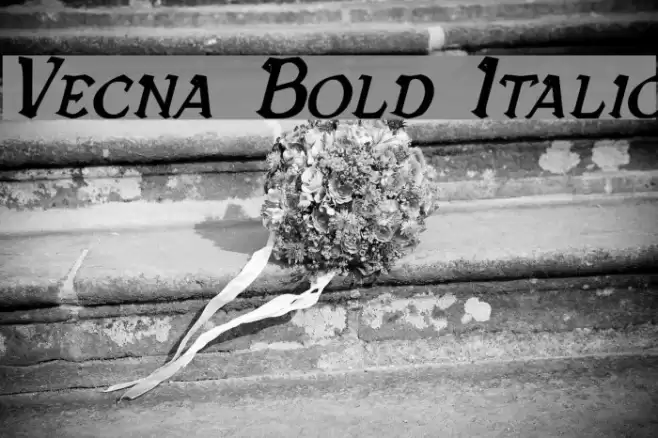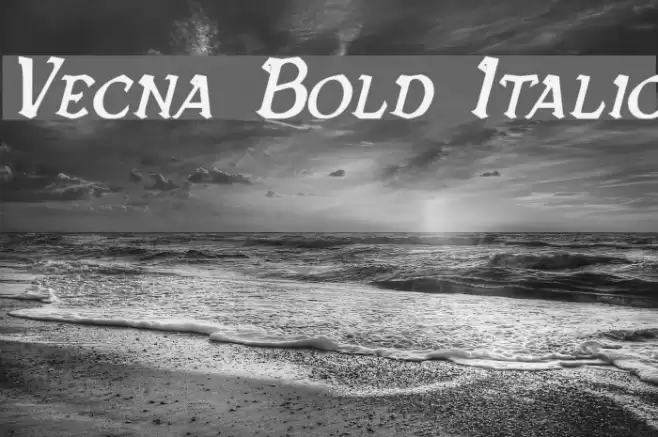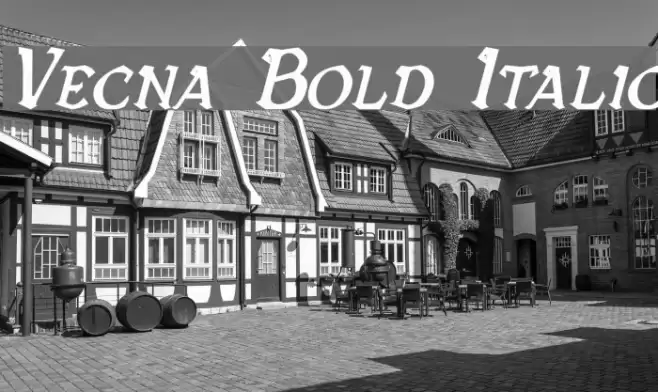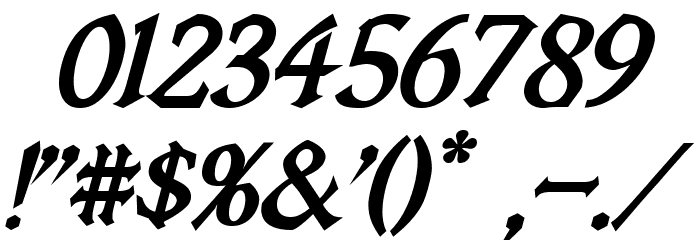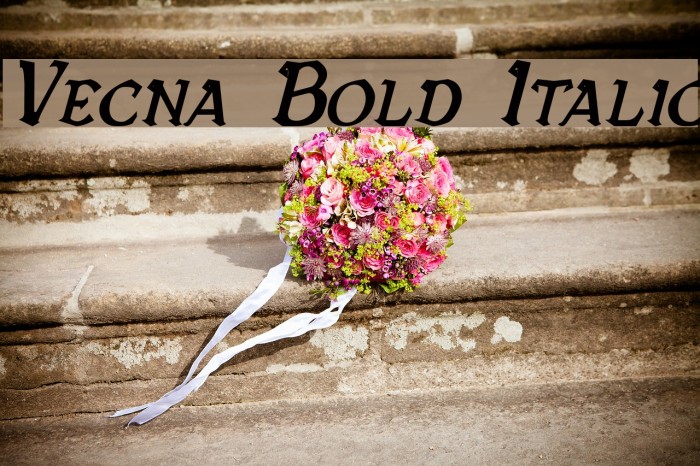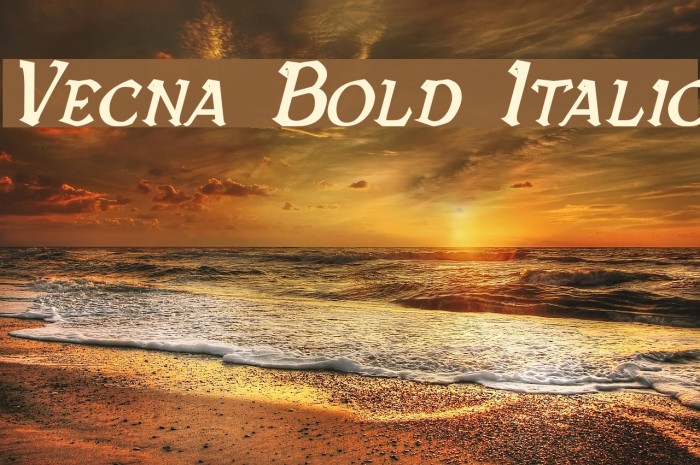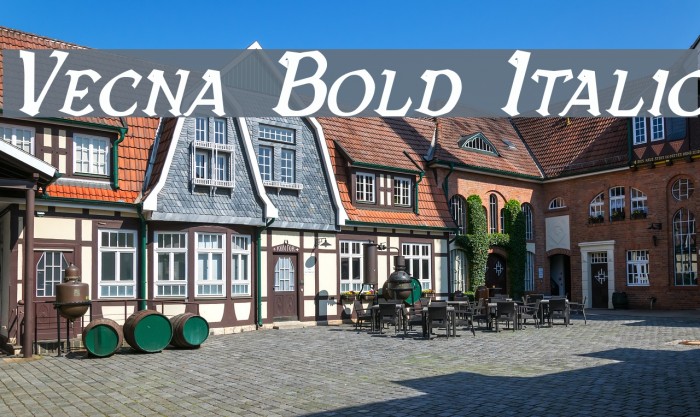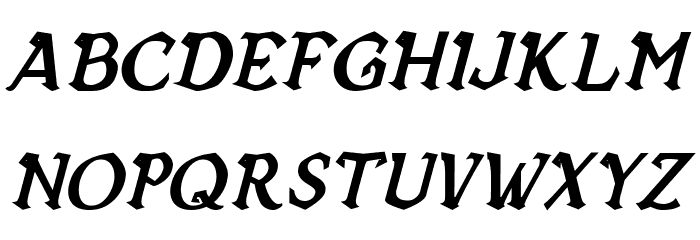
Vecna Bold Italic Font
Vecna Bold Italic Description
This font features a bold and italic style, characterized by its dynamic and slanted letterforms. The strokes are thick and consistent, providing a strong presence on the page. The design includes sharp serifs and a slight curvature in the strokes, giving it a sense of movement and elegance. The uppercase and lowercase letters maintain a cohesive look, while the numerals and special characters are designed to match the overall aesthetic. This font is suitable for making a bold statement, with its high contrast and distinctive style.
A bold, italic font with sharp serifs and dynamic letterforms from Uncategorized fonts.
- Proposed Projects: Ideal for branding, headlines, posters, and any design requiring a strong, elegant presence.